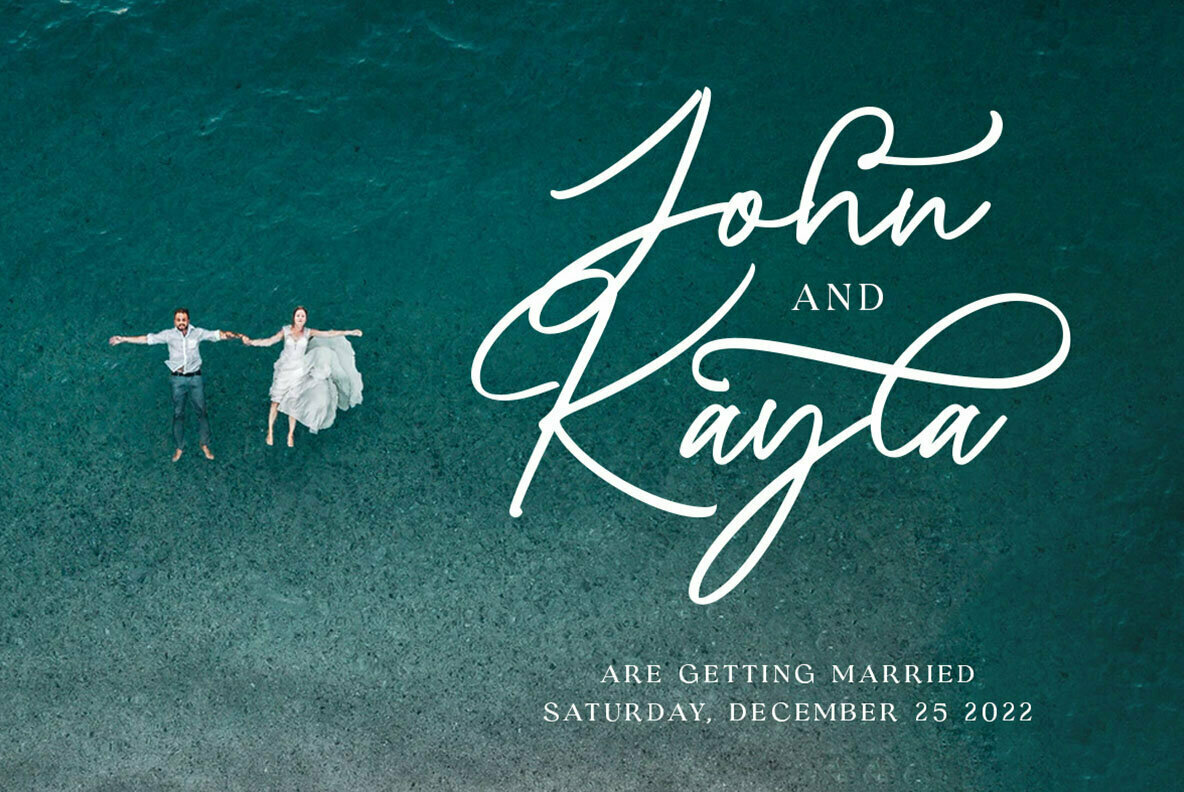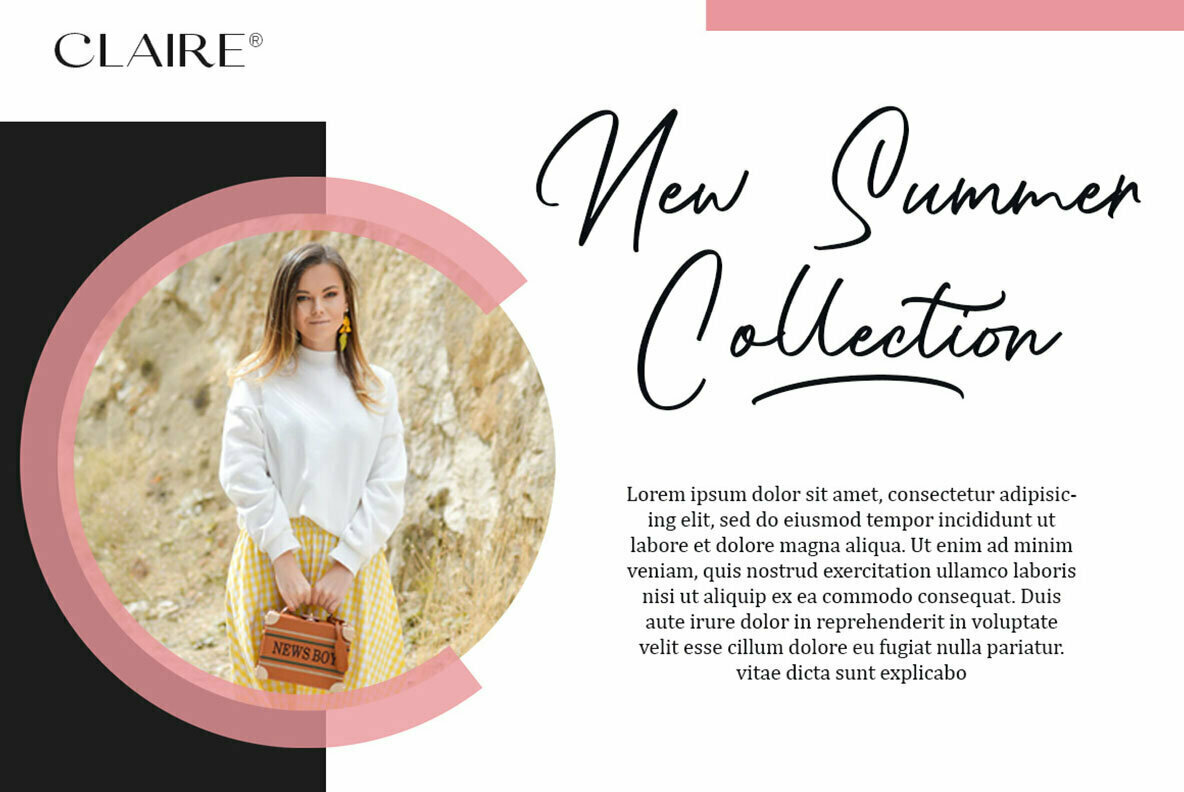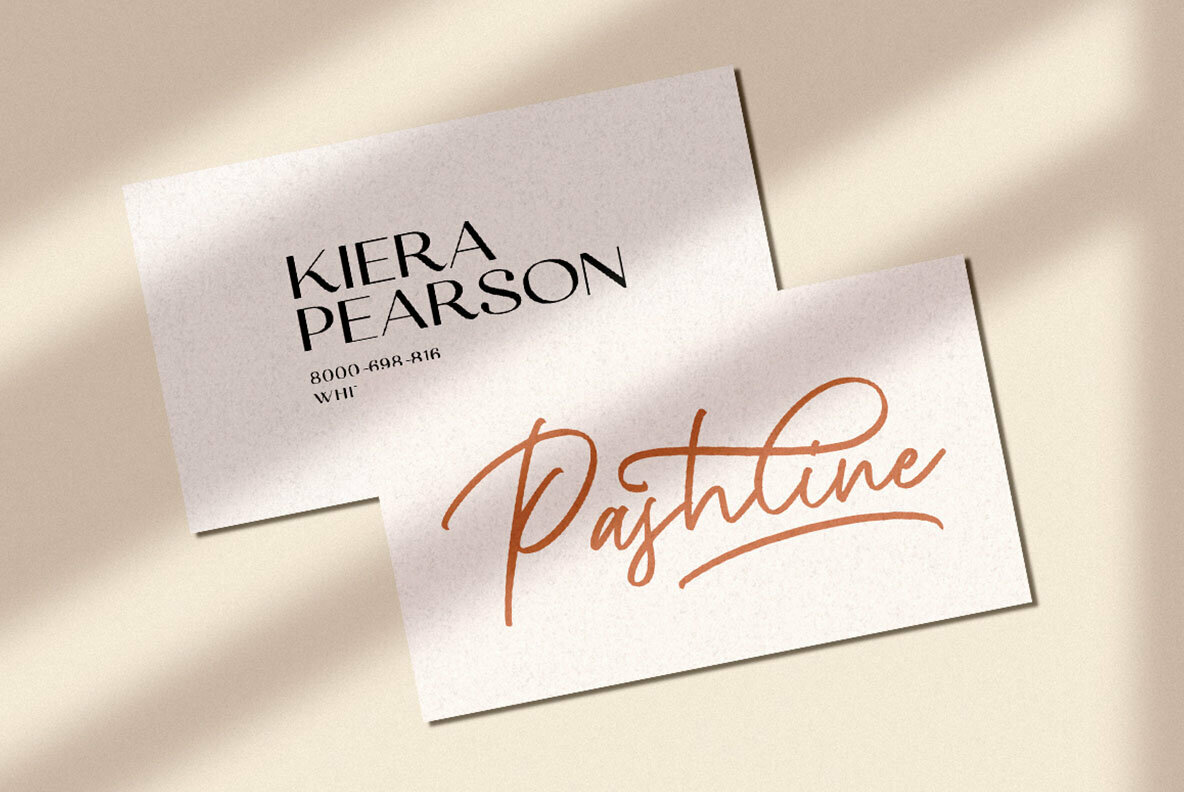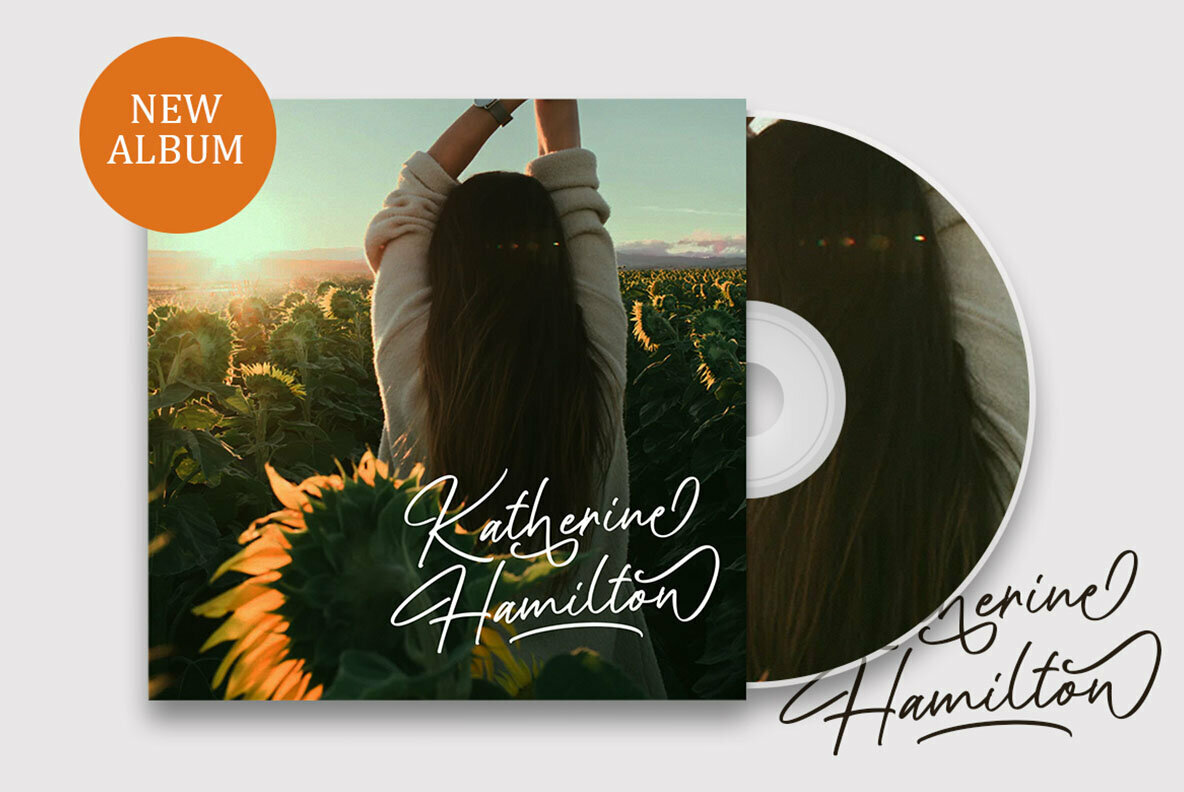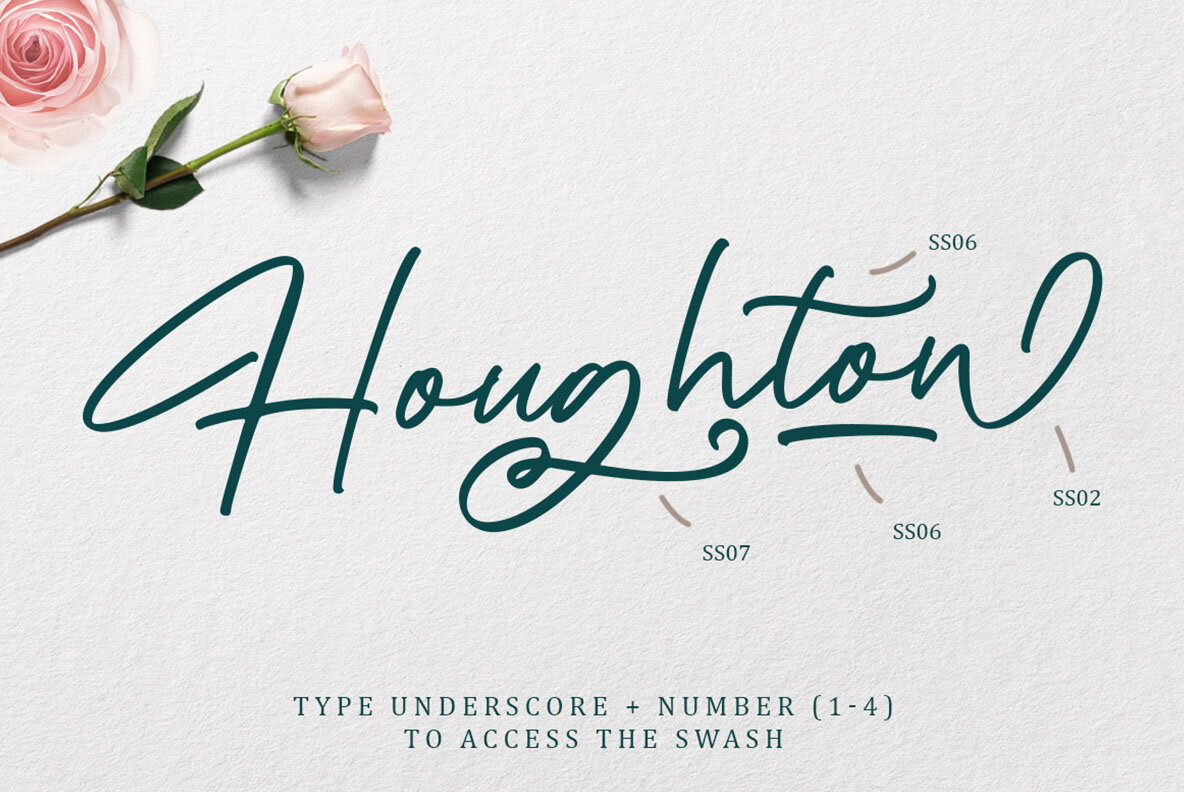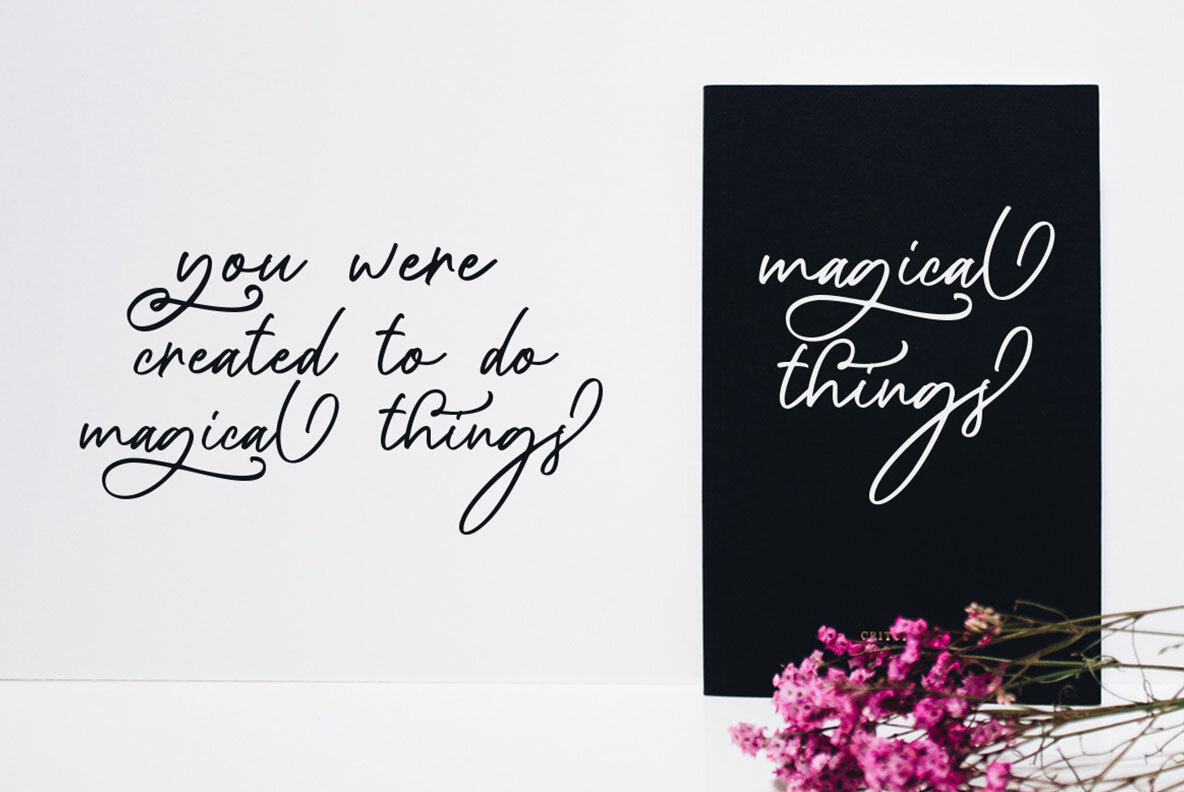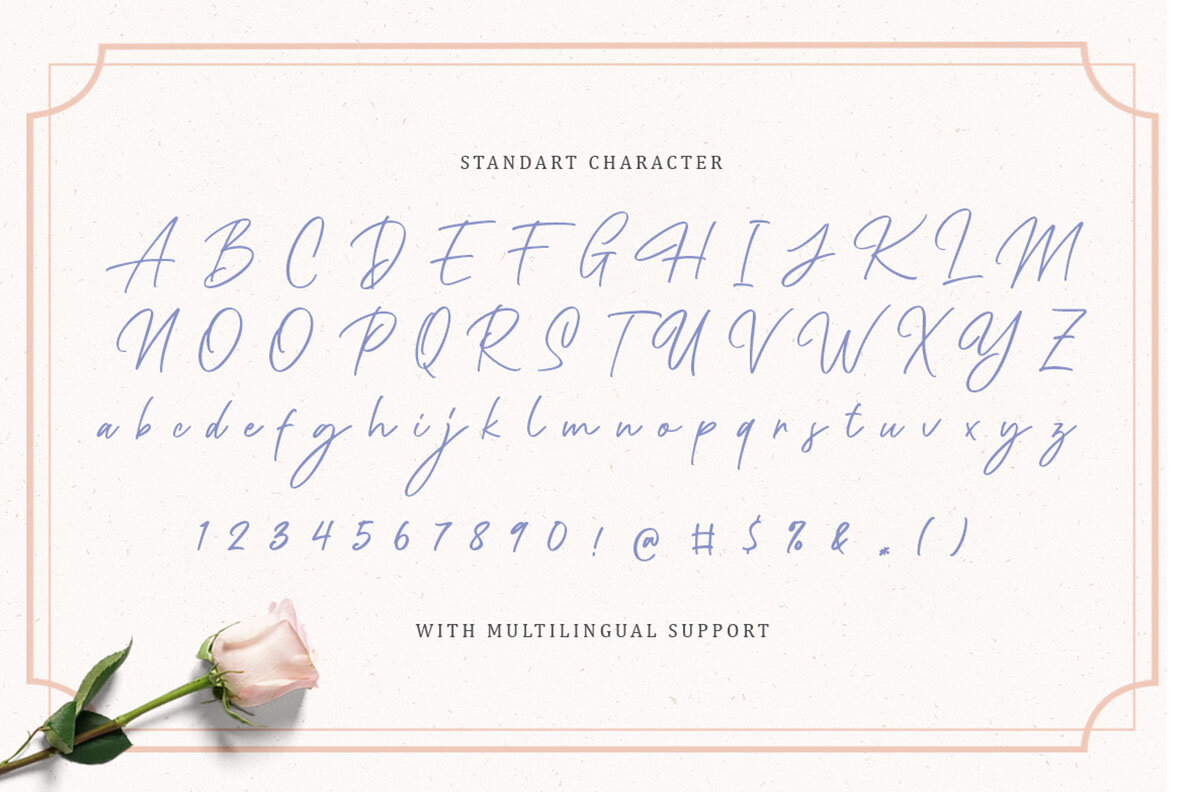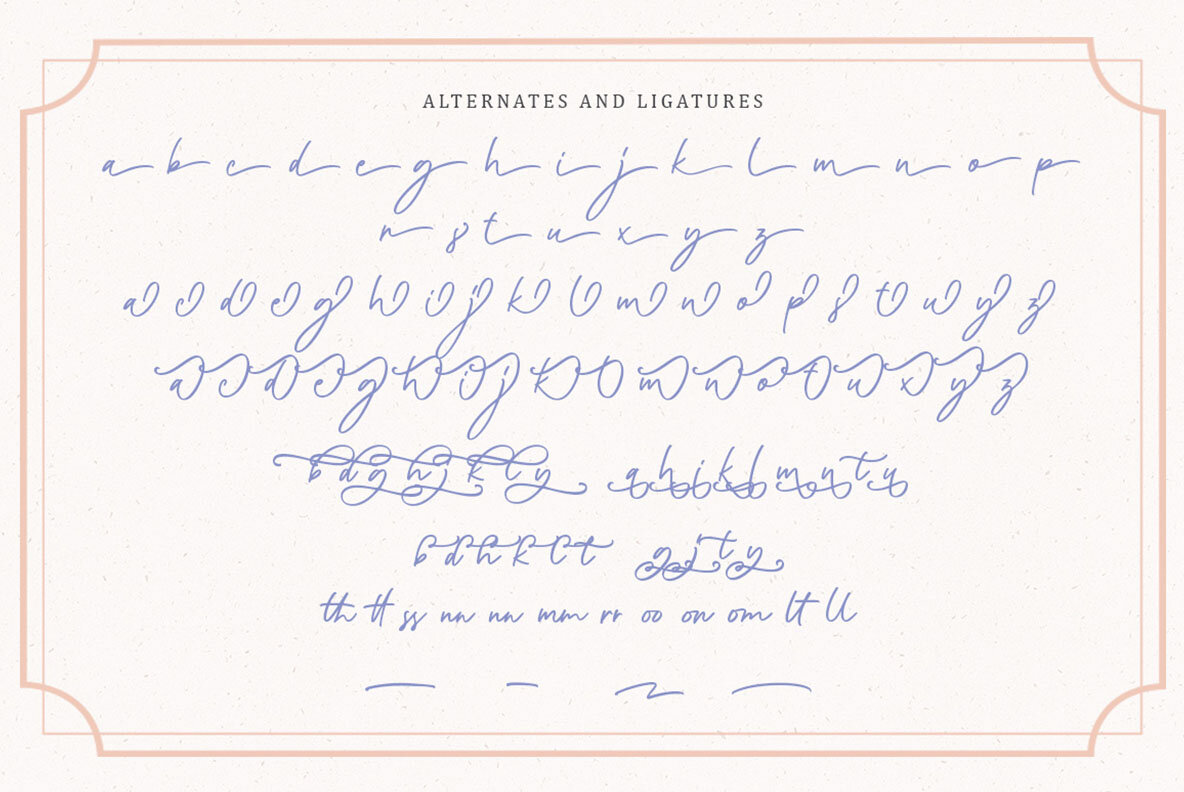
Delgian Font
Delgian Regular
Delgian is an exquisite handwritten script that blends femininity with simplicity, providing natural calligraphic aesthetics. This typeface stands out in its ability to adapt to various design needs, making it an excellent choice for logos and formal applications. Its versatility makes it ideal for a range of projects including invitations, labels, magazines, books, greeting or wedding cards, packaging, fashion, makeup, stationery, novels, and advertising. Features:Delgian: Elegant Handwritten Script